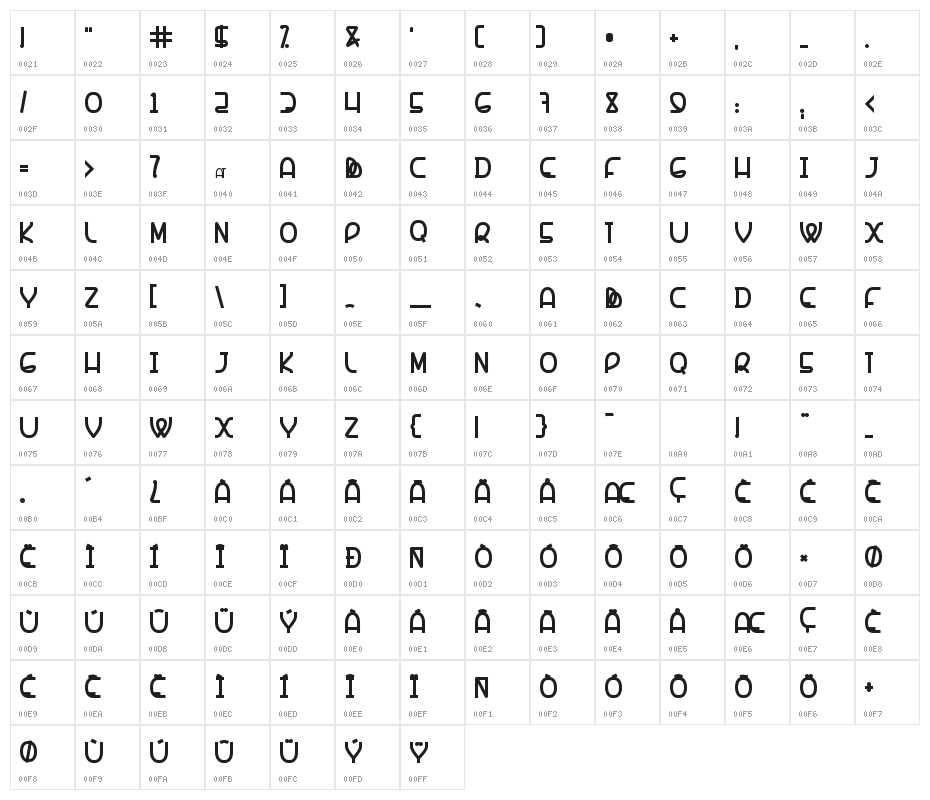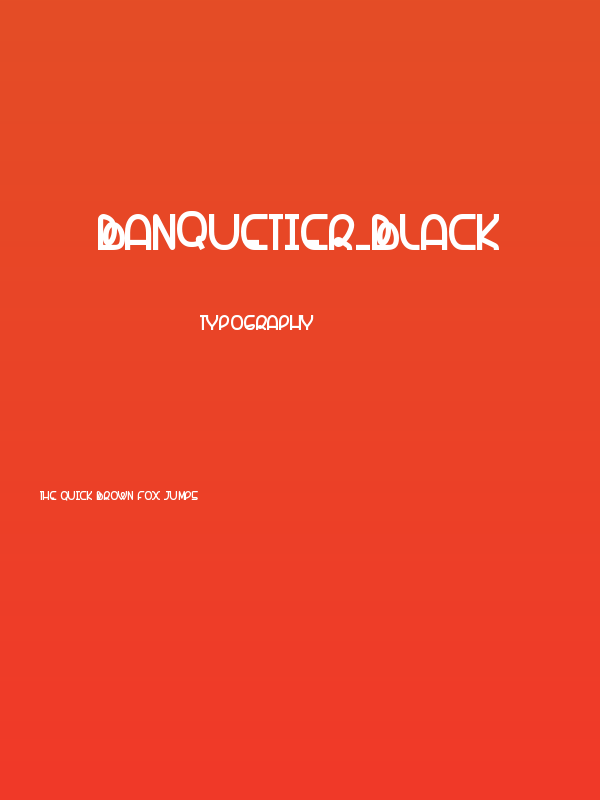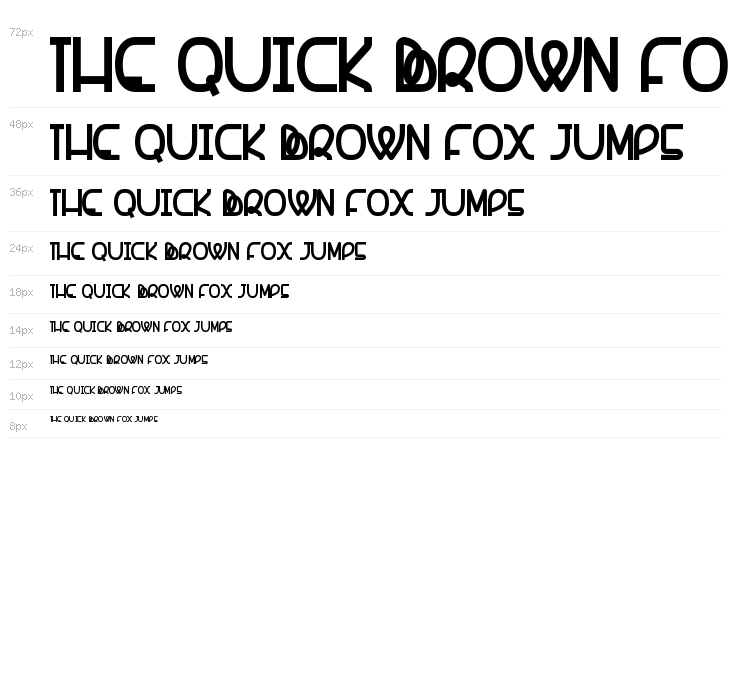
Banquetier-Black Font
Banquetier-Black Description
This font exhibits a bold and geometric style with a modern twist. The characters are constructed with thick, uniform strokes, creating a strong visual impact. The design incorporates unique cutouts and angles, giving it a futuristic and edgy appearance. The uppercase and lowercase letters maintain a consistent height, enhancing readability while adding a distinct personality. The numerals are equally bold, matching the overall aesthetic. Special characters are creatively designed, maintaining the font's cohesive look. This font is ideal for projects that require a contemporary and striking visual element.
| Proposed Projects | Ideal for branding, posters, headlines, and digital media that require a modern and bold statement. |